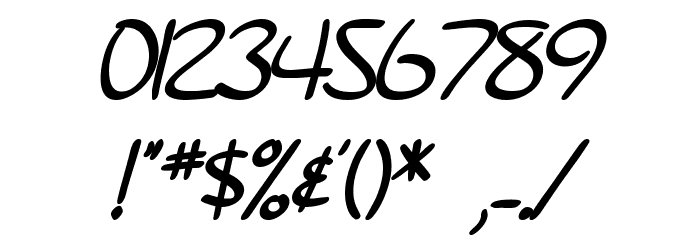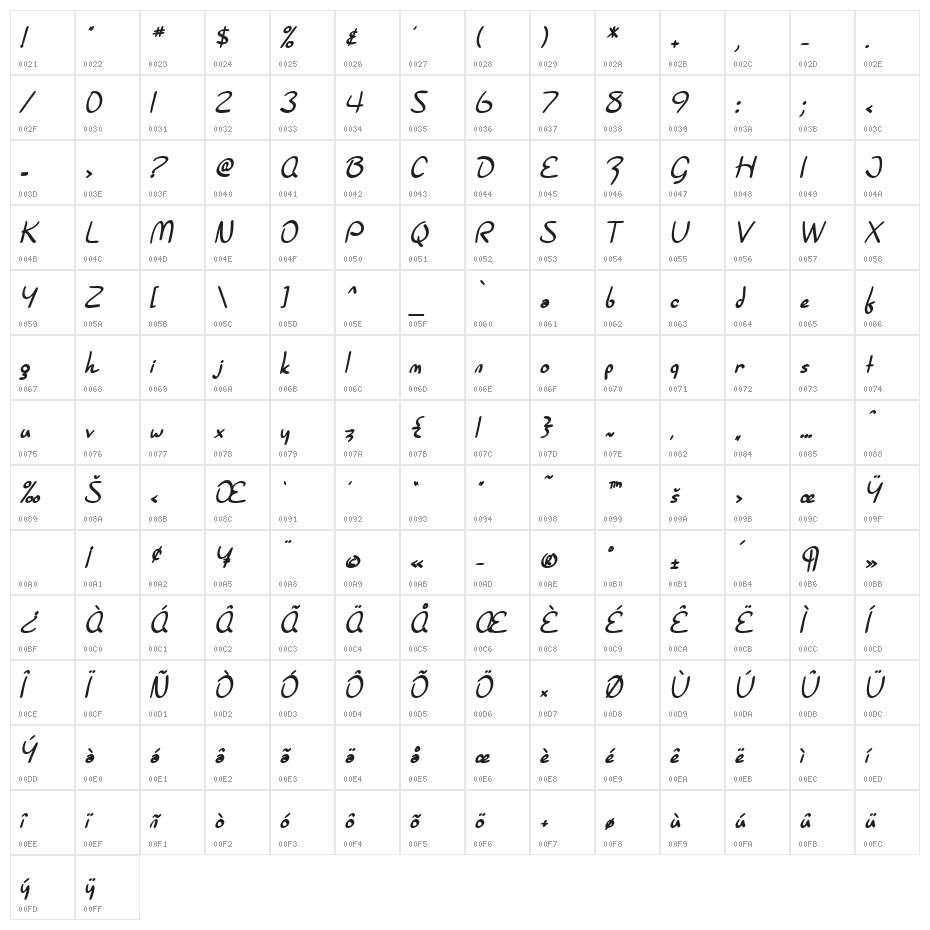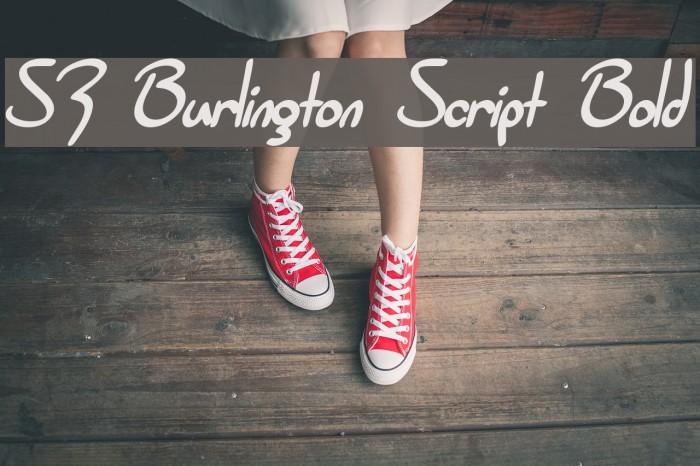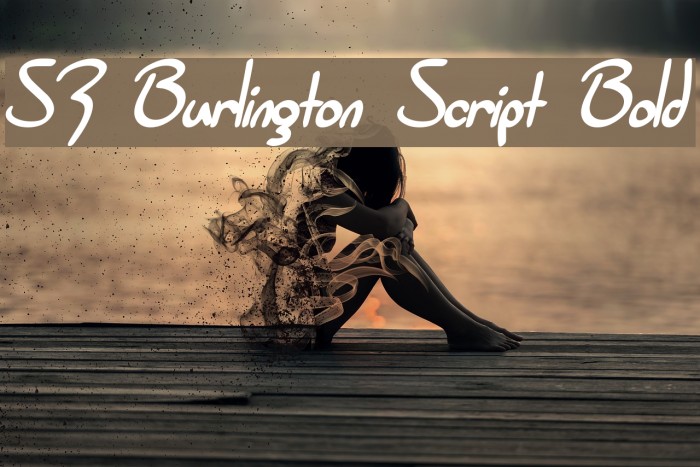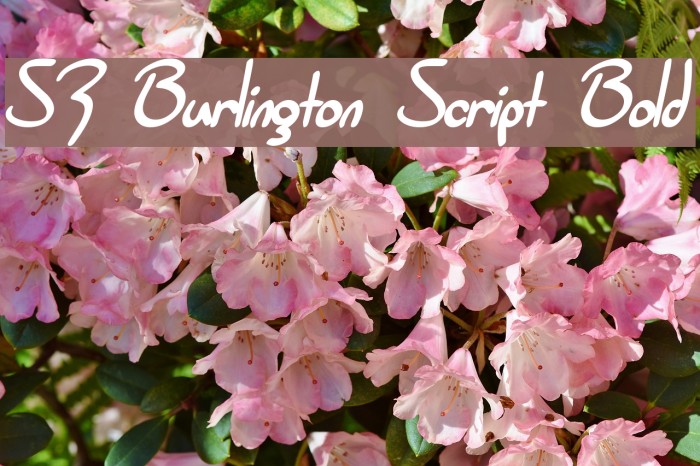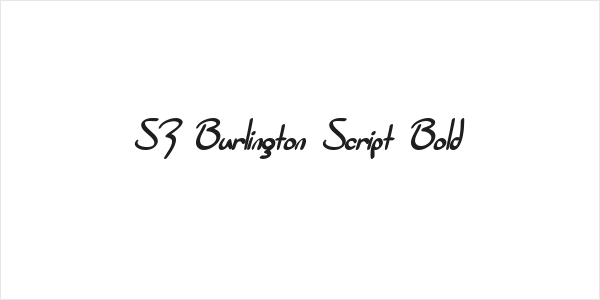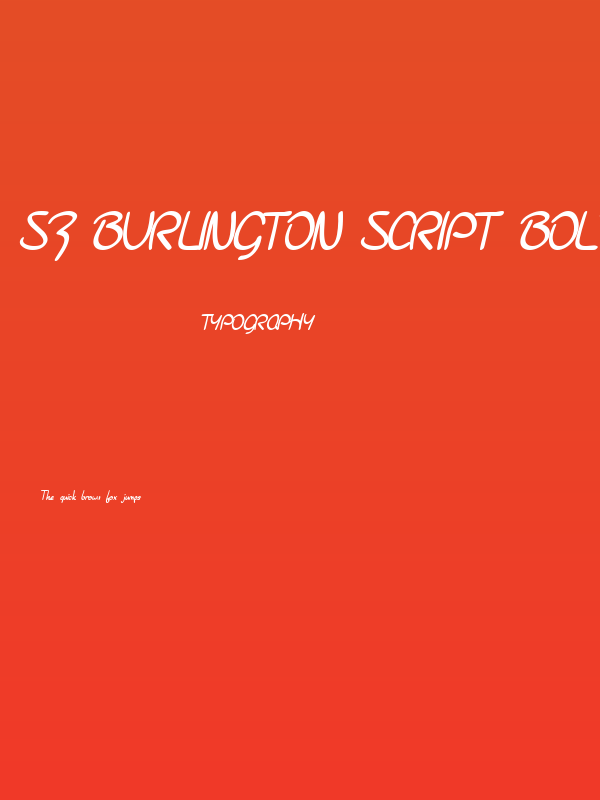
SF Burlington Script Bold Font
SF Burlington Script Bold Description
This font exudes a lively and dynamic energy with its bold, cursive script style. The characters are fluid and connected, reminiscent of elegant handwriting. The uppercase letters are slightly more structured, while the lowercase letters flow seamlessly into one another, creating a cohesive and harmonious appearance. The numerals and special characters maintain the same energetic style, making them suitable for creative and expressive designs. The overall look is both sophisticated and playful, ideal for projects that require a personal touch.
| Proposed Projects | Ideal for invitations, greeting cards, branding, and logo design where a personal and elegant touch is desired. |